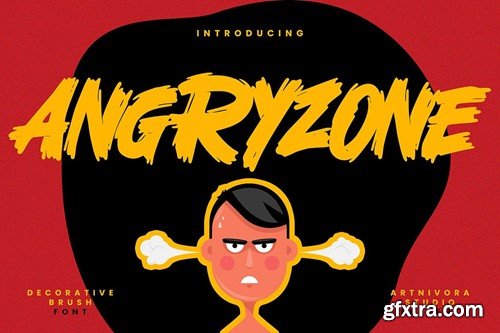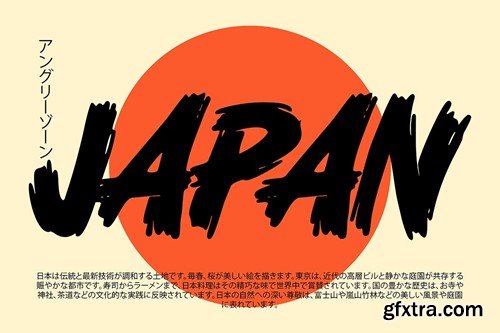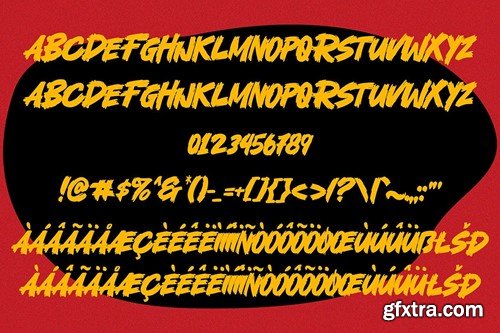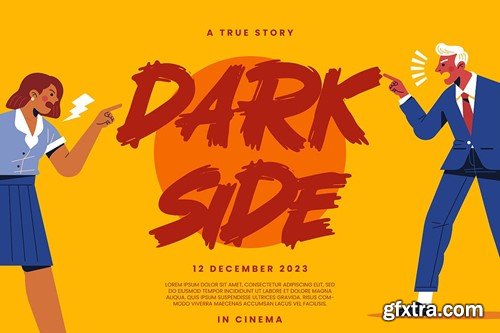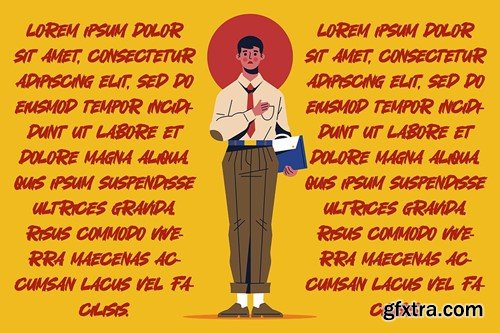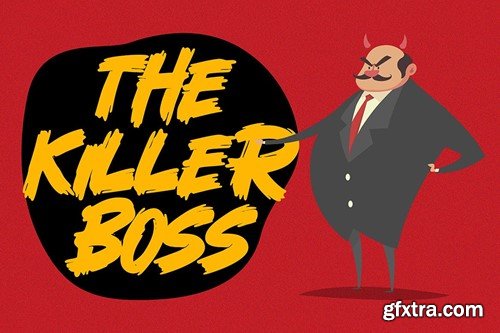
愤怒之区 - 装饰画笔字体 YR44XYF
Angryzone - Decorative Brush Font YR44XYF
Angryzone - Decorative Brush Font
Introducing Angryzone, a simple and decorative brush font. So perfect for you who needs a typeface for logo designs, magazine, social media, brochure, and many more.
Features
• Uppercase
• Punctuation
• Numerals
• Multilingual Support